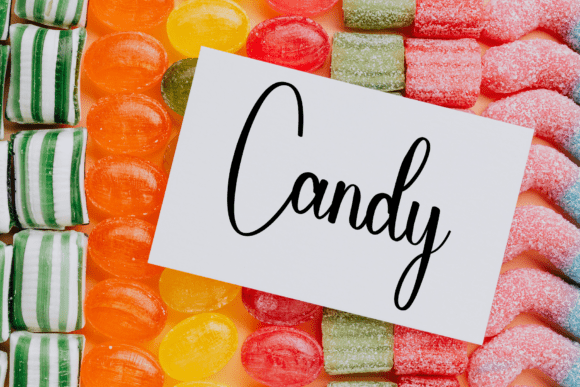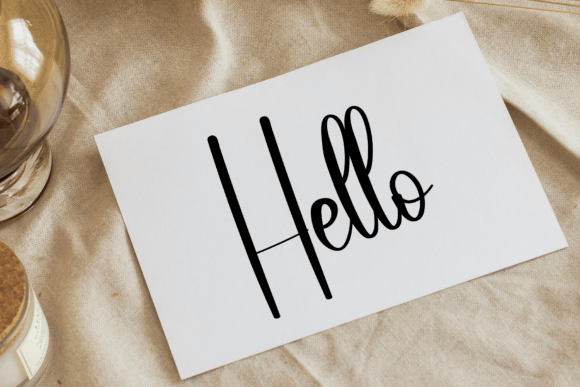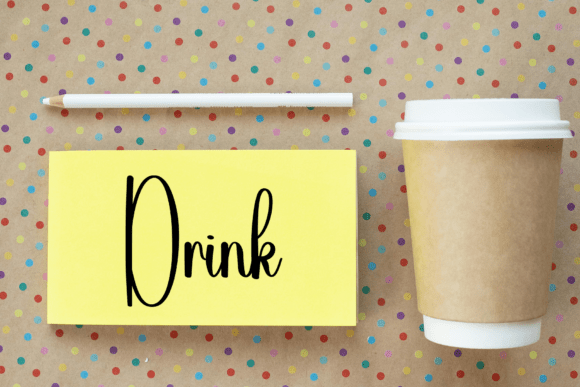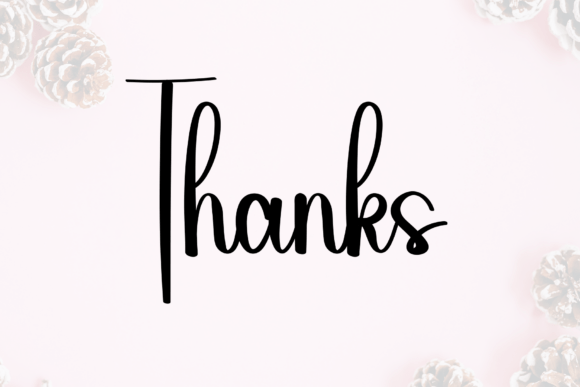
Introduction to Pink Valentine Font
As a designer, have you ever been searching for the perfect font to convey the essence of love and romance in your creative project? Perhaps you’re working on a beauty branding campaign, a floral shop’s social media, or even a heartfelt Valentine’s Day card. If so, you’re in luck because we’re about to introduce you to the charming Pink Valentine Font.
This delicate, upright script font is a game-changer for designers looking to add a touch of elegance and whimsy to their designs. With its long, slender strokes and swirly loops, the Pink Valentine Font is sure to capture the feeling of a handwritten love letter. Whether you’re working on a digital or print media project, this font is a valuable design resource that will elevate your work and make it stand out from the crowd.
Key Features of Pink Valentine Font
- Unique Hand-Drawn Design: The Pink Valentine Font boasts a one-of-a-kind, hand-drawn design that adds a touch of whimsy to any creative project.
- Perfect for Romantic Projects: With its delicate, feminine script, the Pink Valentine Font is ideal for romantic projects, such as Valentine’s Day cards, wedding invitations, and more.
Honest Review: Pink Valentine Font
I recently had the chance to work with the Pink Valentine Font, and I must say it’s been a pleasant experience. As a designer, I appreciate fonts that add a touch of personality to my creative projects.
What works well with this font is its playful and romantic feel, making it perfect for Valentine’s Day-themed designs or any project that requires a soft, feminine touch. The high-quality design ensures that the font looks great on a variety of backgrounds, including transparent ones.
- Playful and romantic feel
Overall, I’m impressed with the Pink Valentine Font. While it may not be the most versatile font, it’s perfect for specific creative projects that require a touch of whimsy and romance.
The Pink Valentine Font is perfect for Valentine’s Day-themed projects, such as greeting cards, social media posts, and print materials. It’s also great for adding a touch of romance and whimsy to your designs.